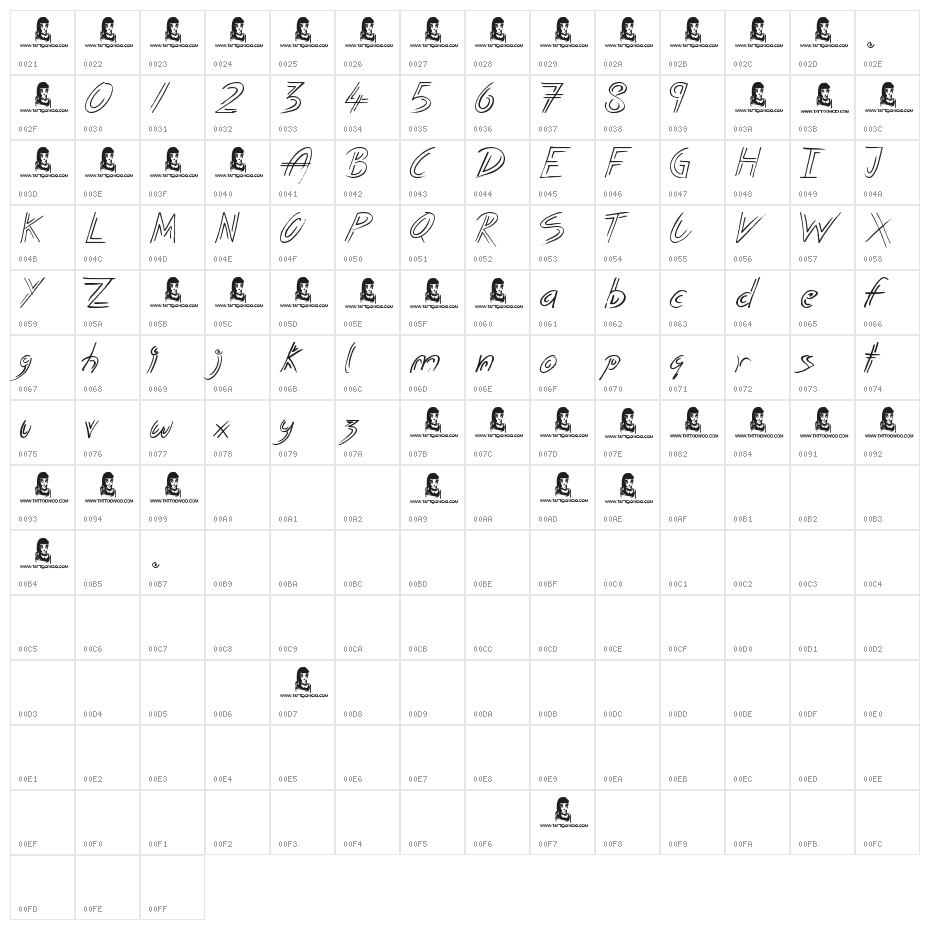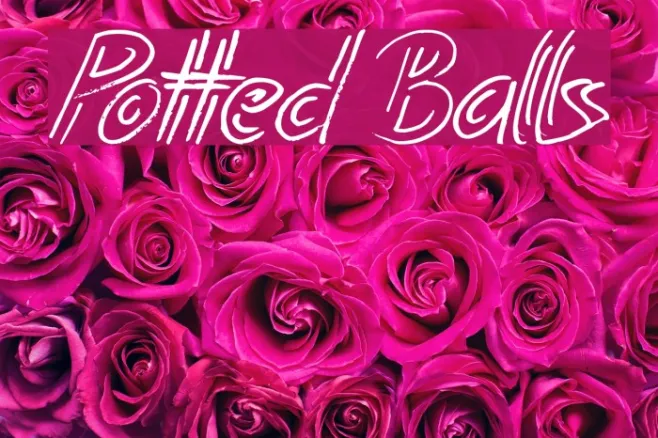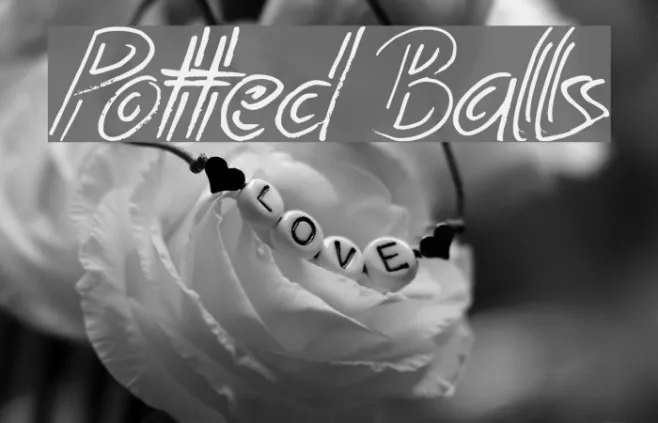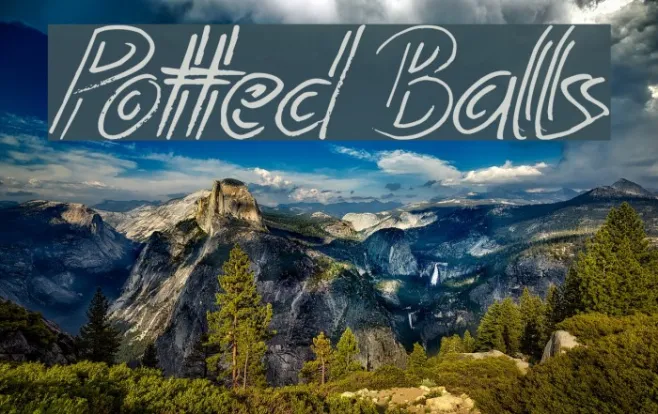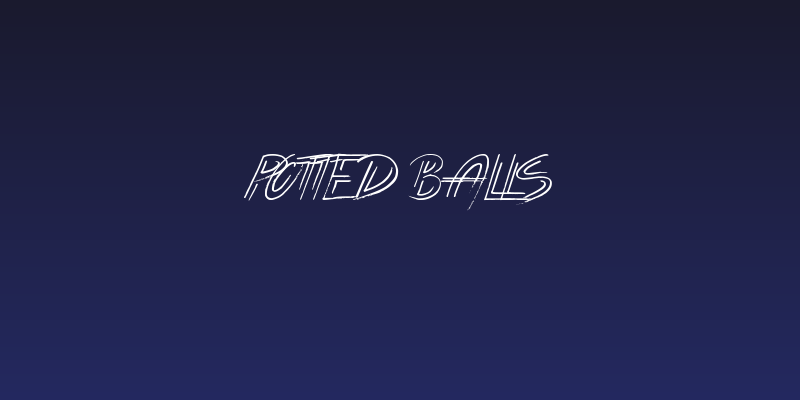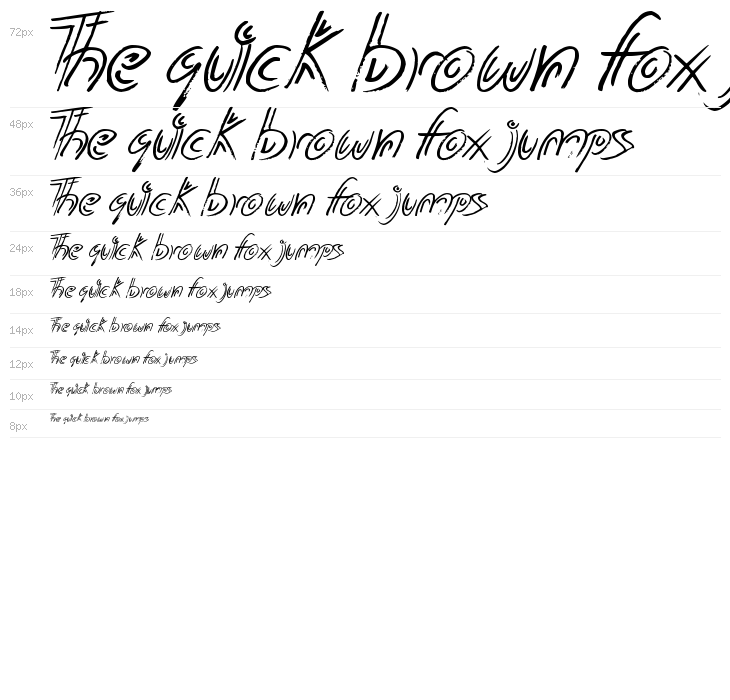
Potted Balls Font
Potted Balls Description
This font features a dynamic and edgy style, characterized by its sharp, angular strokes and a sense of movement. The letters are crafted with a brush-like effect, giving them a hand-drawn appearance that is both artistic and energetic. The uppercase and lowercase letters maintain a consistent style, with varying stroke thicknesses that add to the font's expressive nature. Numbers and special characters follow the same design principles, ensuring a cohesive look across all characters. This font's unique style makes it ideal for projects that require a bold and creative touch.
| Proposed Projects | Ideal for album covers, posters, graffiti art, and other creative projects that require a bold, artistic touch. |